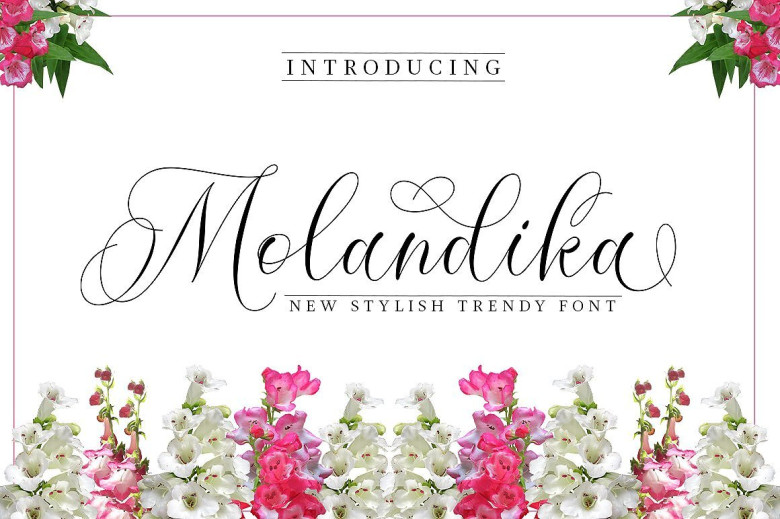
Molandika Calligraphy Font
A new stylish trendy font. A lovely calligraphy font. Add it to your fonts collection right away. Introducing Molandika Font! It is designed and shared by Great Studio. Molandika Script is elegant calligraphy font, designed to convey elegance and style. It is slender, feminine and friendly, This font is casual and pretty with swashes. Can used for various purposes. such as logo, product packaging, wedding invitations, branding, headlines, signage, labels, signature, book covers, posters, quotes and more.